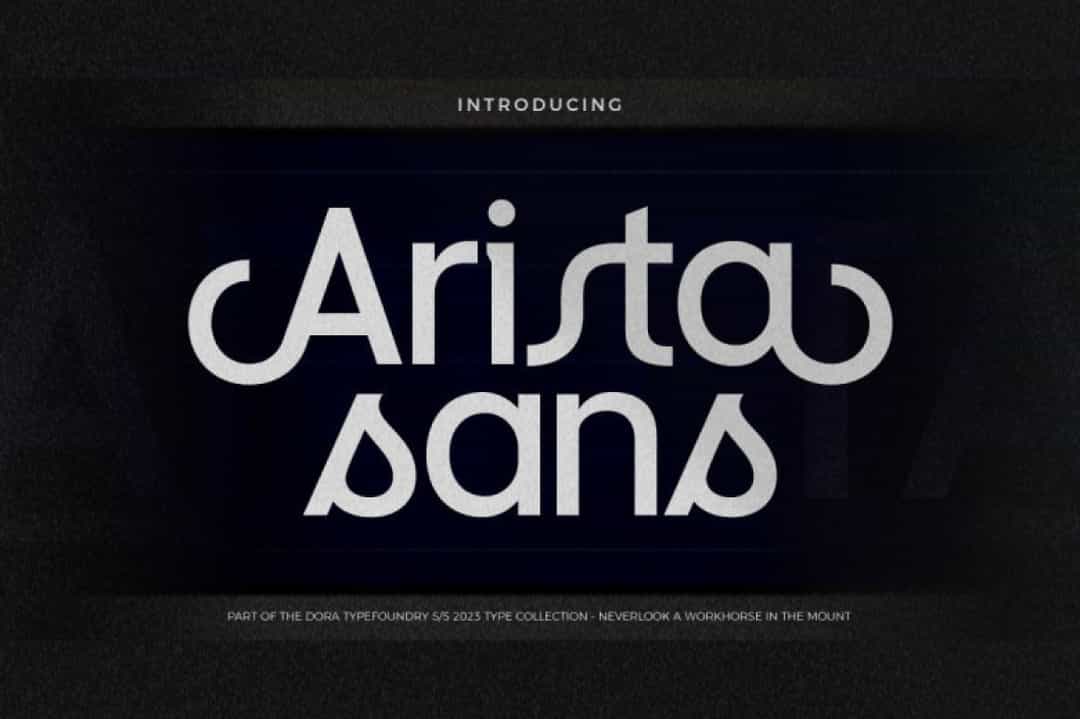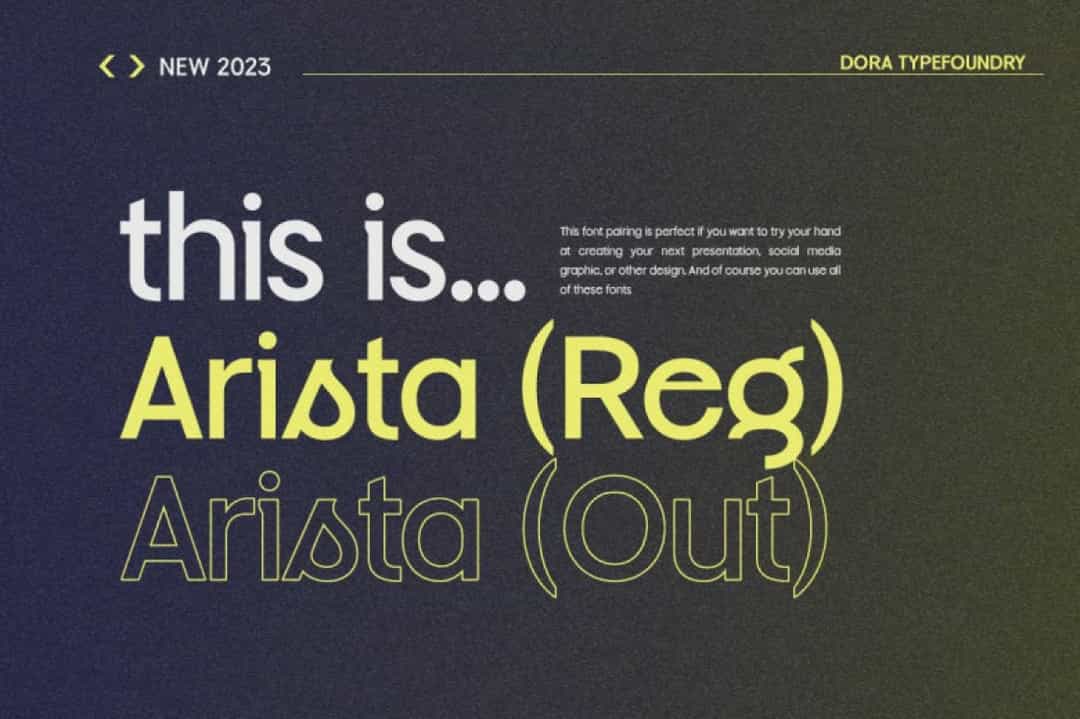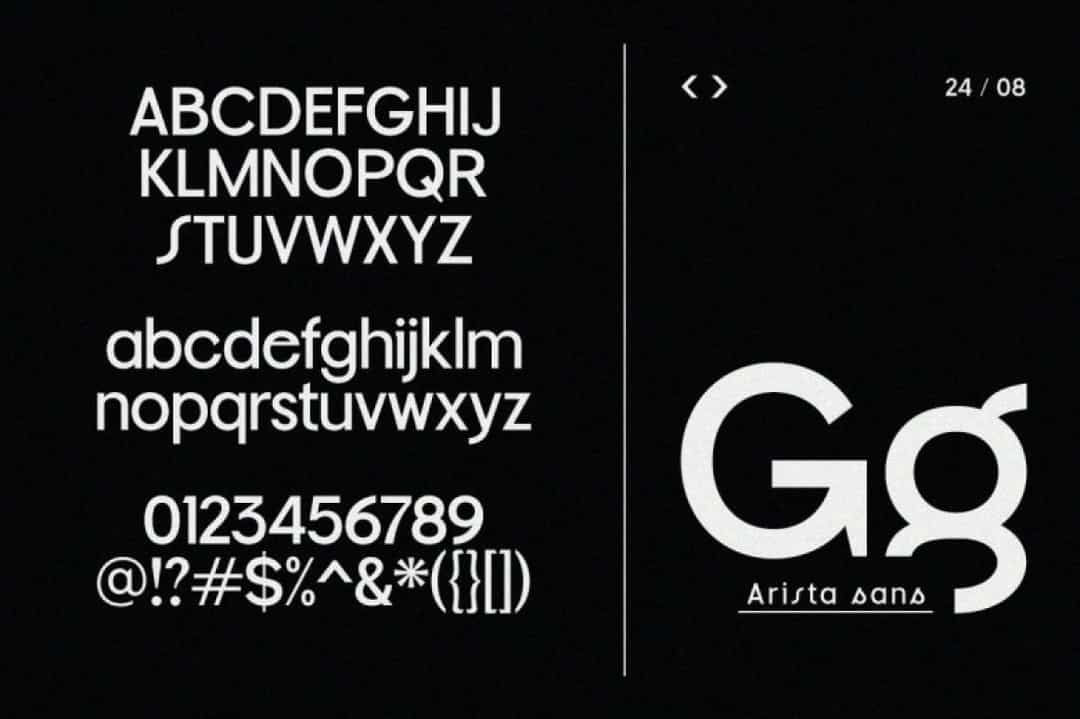
Arista Sans is an authentic sans-serif font with sharp, high-contrast geometric patterns that add visual interest. Arista makes the ideal font to use in presentations for any purpose – be it social media graphics or other styles; combine this font with another bold sans serif font for optimal results.